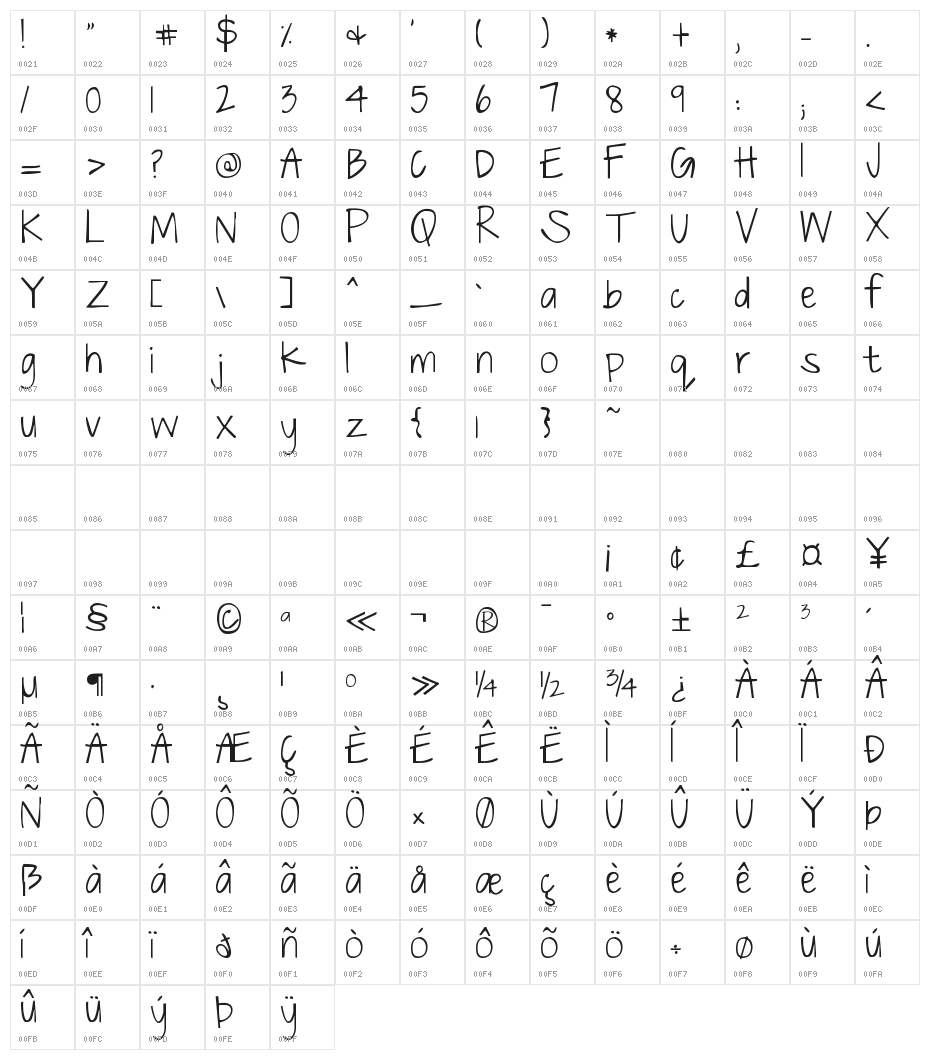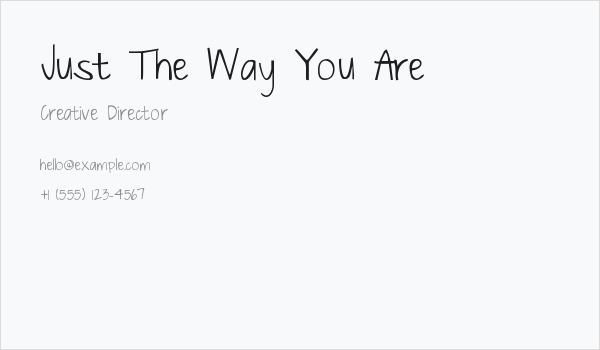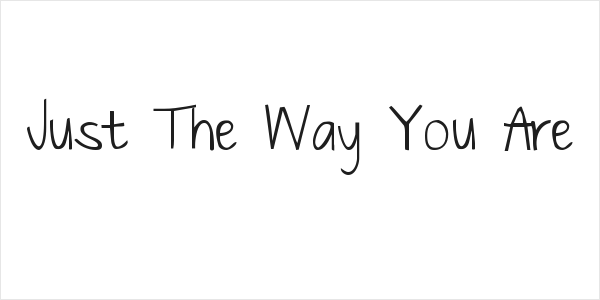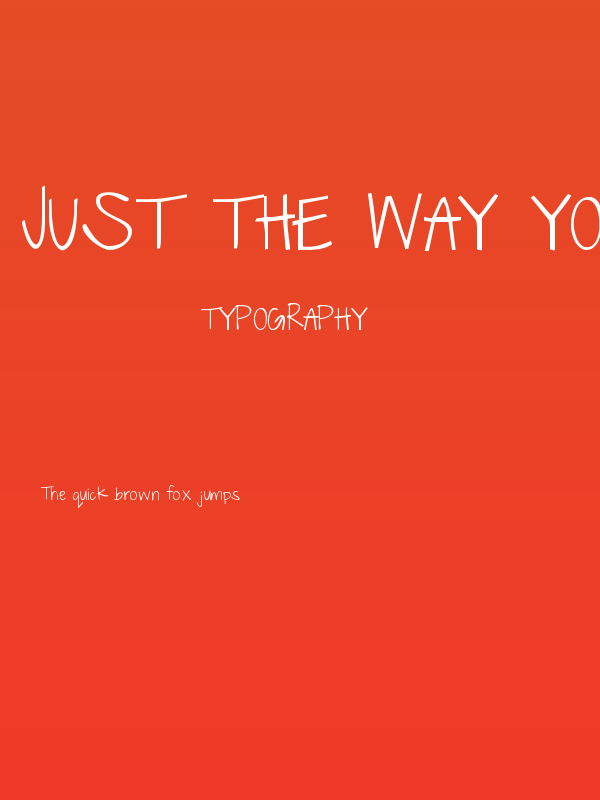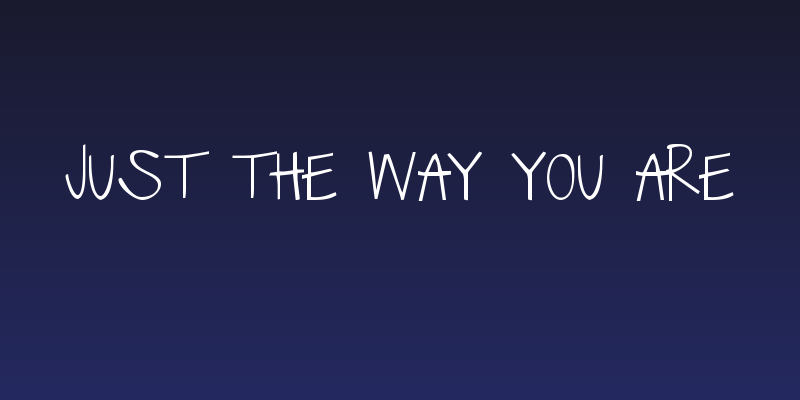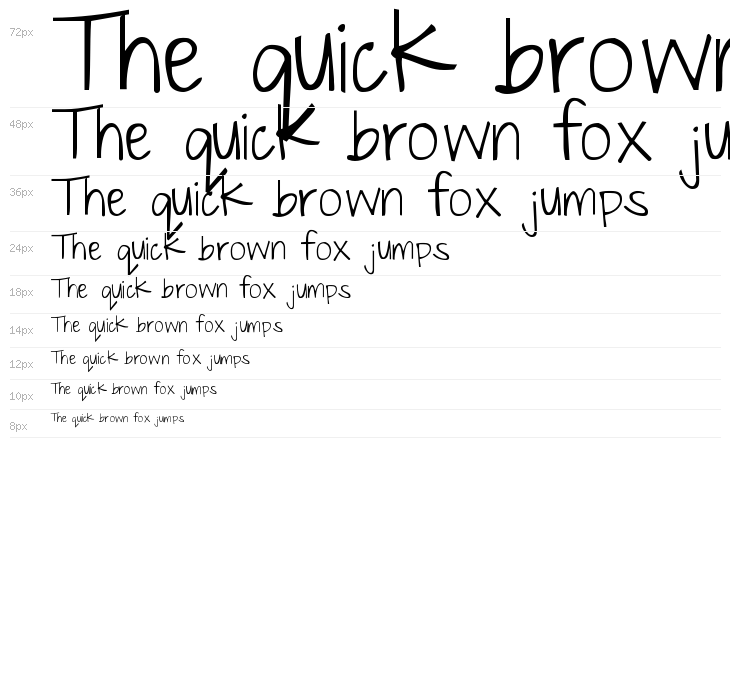
Just The Way You Are Font
Just The Way You Are Description
This font features a playful and casual handwritten style, characterized by its irregular strokes and informal appearance. The letters have a slightly uneven baseline, adding to the whimsical and approachable feel. The uppercase and lowercase letters are distinct, with the lowercase showing a more pronounced slant and curvature. The numerals and special characters maintain the same playful aesthetic, making the font versatile for various creative applications. Its overall look is friendly and inviting, perfect for projects that require a personal touch.
| Use Case | Headlines, Logos, Informal text |
| Proposed Projects | Ideal for greeting cards, children's books, personal blogs, and informal branding. |